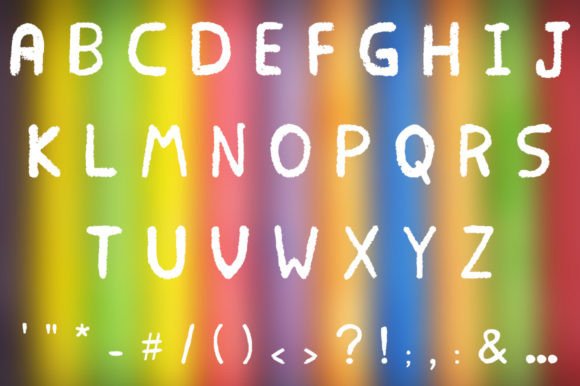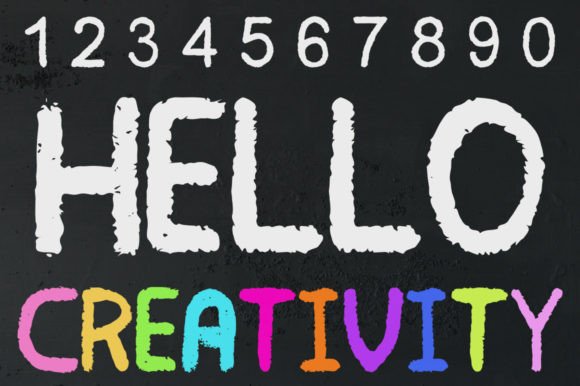
Crayonitta Font: Add a Playful Touch to Your Designs
Crayonitta is a fun and playful display font that can instantly elevate your designs with its lovely touch. Whether you use it for cartoon-related designs, children’s games, or just any creation that requires a whimsical feel, this font is an amazing choice. In this article, we’ll explore the features and benefits of Crayonitta font and how you can use it to add a playful touch to your designs.
What is Crayonitta Font?
Crayonitta font is a display font designed to bring a sense of fun and playfulness to your designs. Its unique and quirky style makes it perfect for use in children’s books, games, and other creative projects that require a lighthearted touch. The font features bold lines, bright colors, and a distinctive texture that gives it a hand-drawn feel.
Key Features of Crayonitta Font
- Playful and Fun Design: Crayonitta font has a unique and playful design that is sure to grab attention. Its bold lines and bright colors make it perfect for use in designs that require a fun and lively touch.
- Hand-Drawn Feel: The font features a distinctive texture that gives it a hand-drawn feel. This makes it perfect for use in designs that require a personal and creative touch.
- High-Quality Design: Crayonitta font is designed with high-quality graphics, making it perfect for use in both print and digital designs.
- Easily Customizable: The font is easily customizable, allowing you to adjust the size, color, and style to suit your design needs.
Benefits of Using Crayonitta Font
Using Crayonitta font in your designs can have several benefits. Here are a few:
- Adds a Playful Touch: Crayonitta font can instantly add a playful touch to your designs, making them more engaging and fun.
- Perfect for Children’s Designs: The font is perfect for use in children’s books, games, and other creative projects that require a lighthearted touch.
- Unique and Quirky Style: Crayonitta font has a unique and quirky style that sets it apart from other fonts. Using it in your designs can help you stand out from the crowd.
- Easy to Read: Despite its playful design, Crayonitta font is easy to read, making it perfect for use in designs that require a clear and legible font.
How to Use Crayonitta Font in Your Designs
Using Crayonitta font in your designs is easy. Here are a few tips to get you started:
- Choose the Right Size: Choose a size that is clear and legible. Crayonitta font is perfect for use in headings and titles, but it can also be used for body text.
- Experiment with Colors: Crayonitta font comes in a range of colors. Experiment with different colors to find the one that works best for your design.
- Pair it with Other Fonts: Crayonitta font can be paired with other fonts to create a unique and interesting design. Try pairing it with a sans-serif font for a contrasting look.
Crayonitta font is a fun and playful display font that can add a lovely touch to your designs. Its unique and quirky style makes it perfect for use in children’s books, games, and other creative projects that require a lighthearted touch. With its high-quality design, easily customizable features, and range of benefits, Crayonitta font is an amazing choice for designers and crafters. So why not give it a try and see how it can elevate your designs?
Tips and Tricks for Using Crayonitta Font
Here are a few tips and tricks for using Crayonitta font:
- Use it for Headings and Titles: Crayonitta font is perfect for use in headings and titles. Its bold lines and bright colors make it stand out.
- Experiment with Different Colors: Crayonitta font comes in a range of colors. Experiment with different colors to find the one that works best for your design.
- Pair it with Images: Crayonitta font can be paired with images to create a fun and engaging design. Try pairing it with illustrations or cartoons.